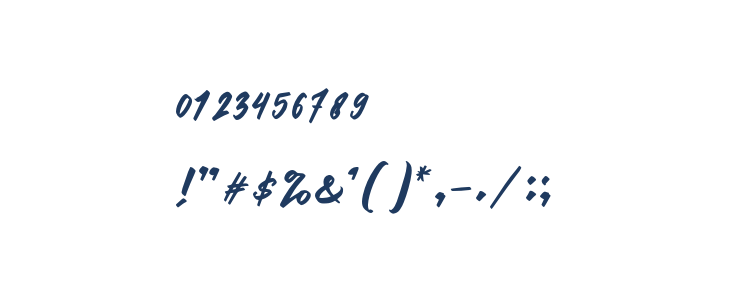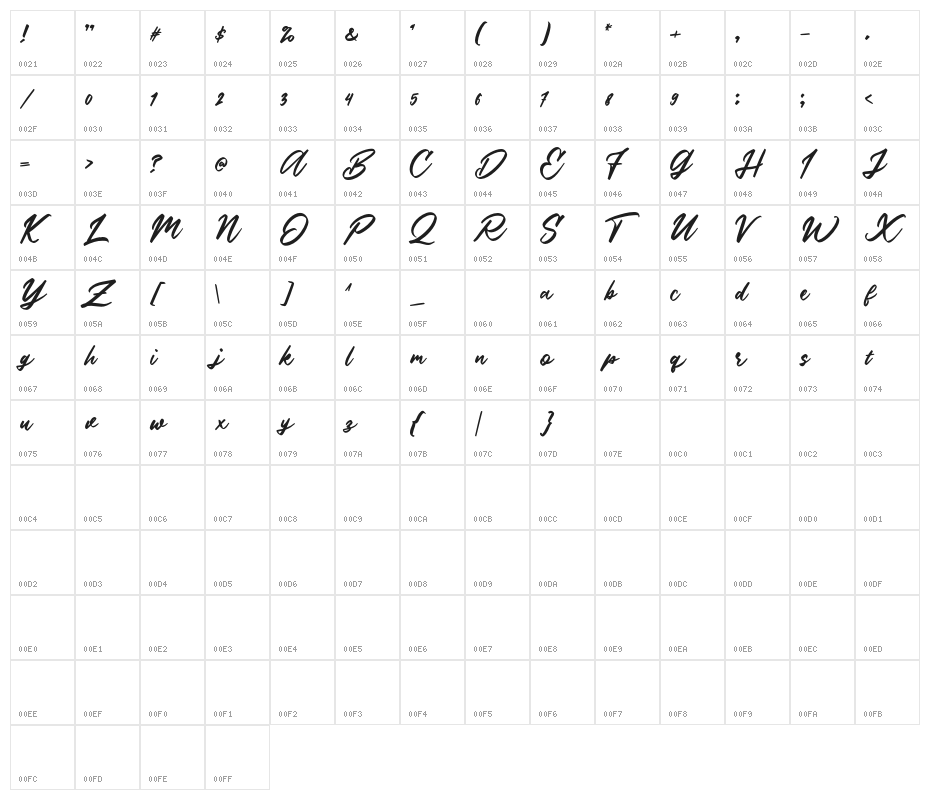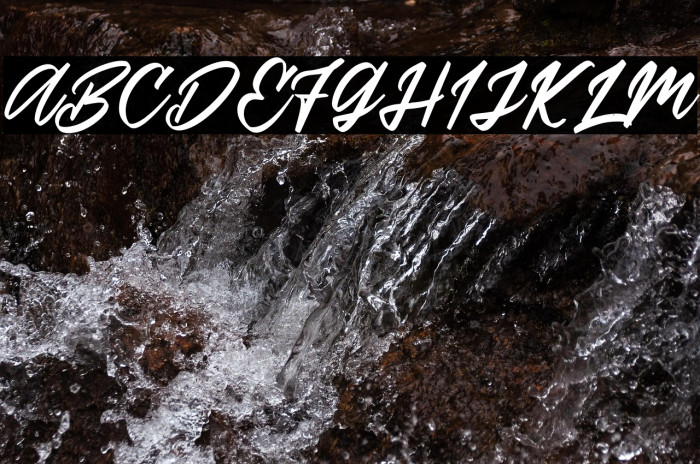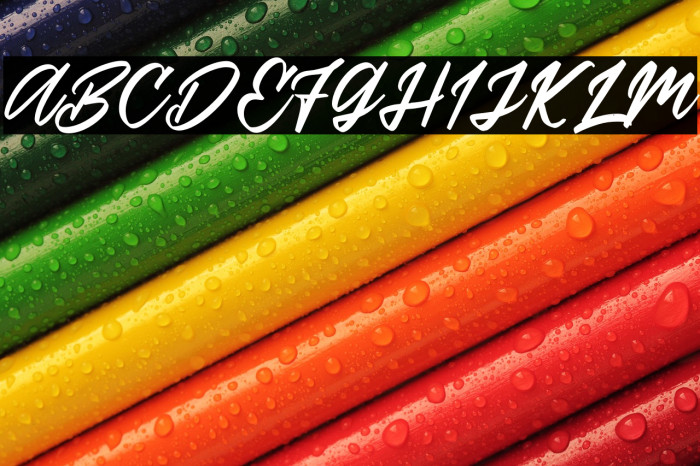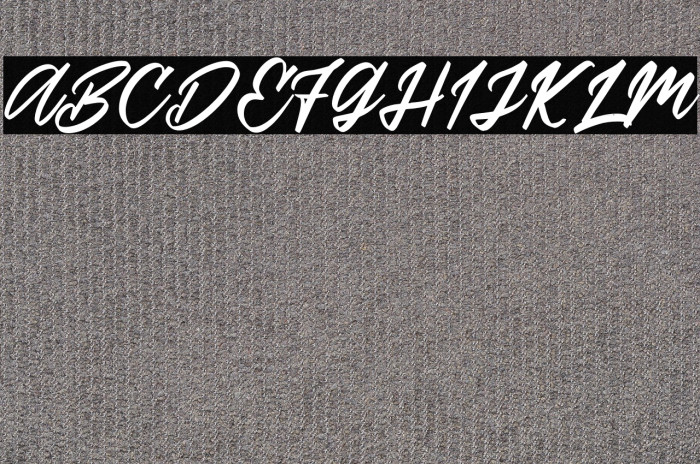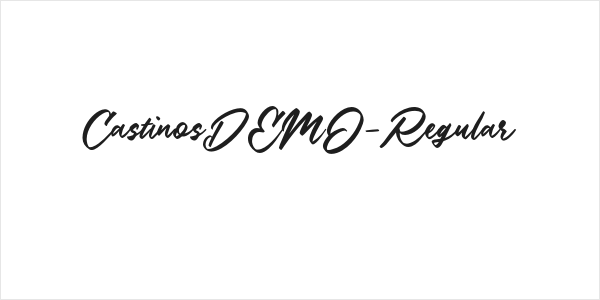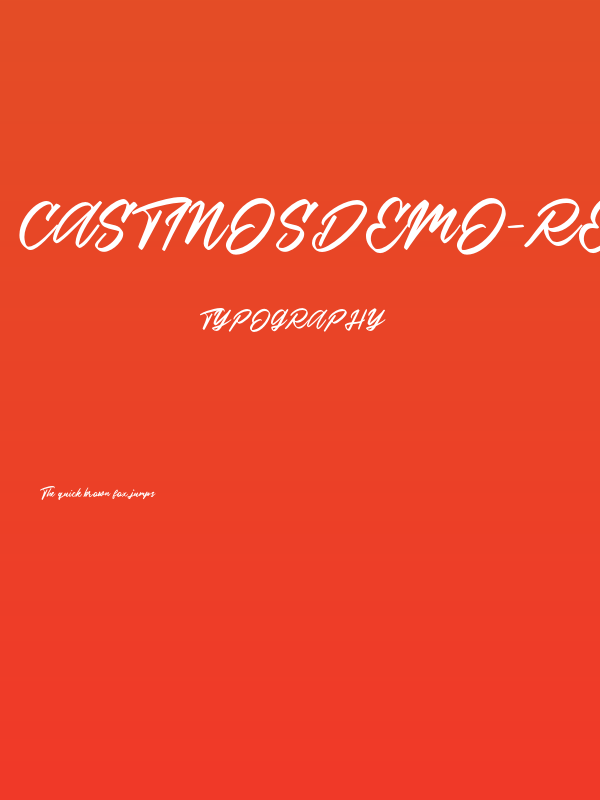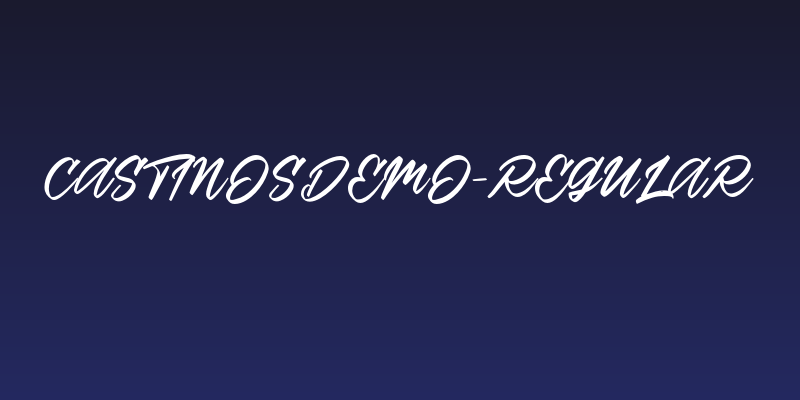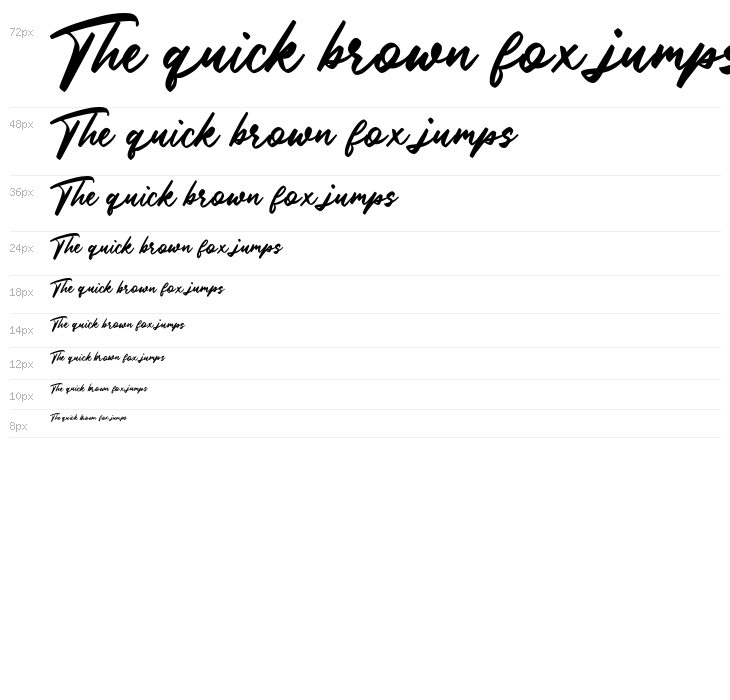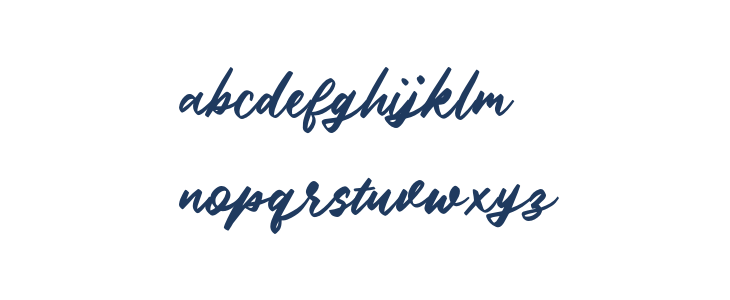
CastinosDEMO-Regular Font
CastinosDEMO-Regular Description
This font features a dynamic and flowing script style, characterized by its elegant and cursive letterforms. The strokes are smooth and connected, giving it a handwritten appearance that is both stylish and sophisticated. The uppercase letters are bold and prominent, while the lowercase letters maintain a consistent flow, enhancing readability. The numerals and special characters are designed to complement the overall script style, ensuring a cohesive look across all text elements. This font is ideal for projects that require a personal touch, such as invitations, greeting cards, and branding materials.